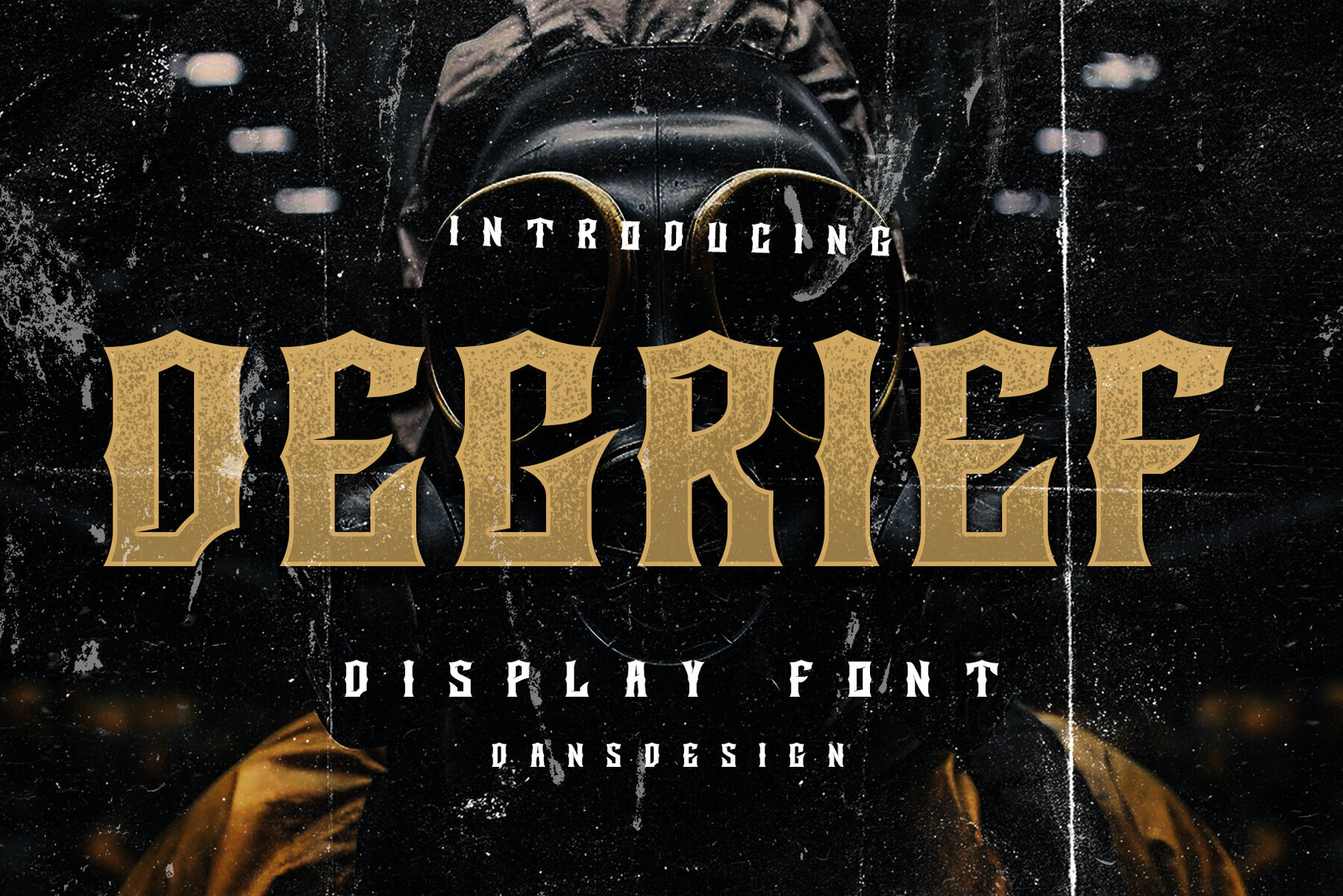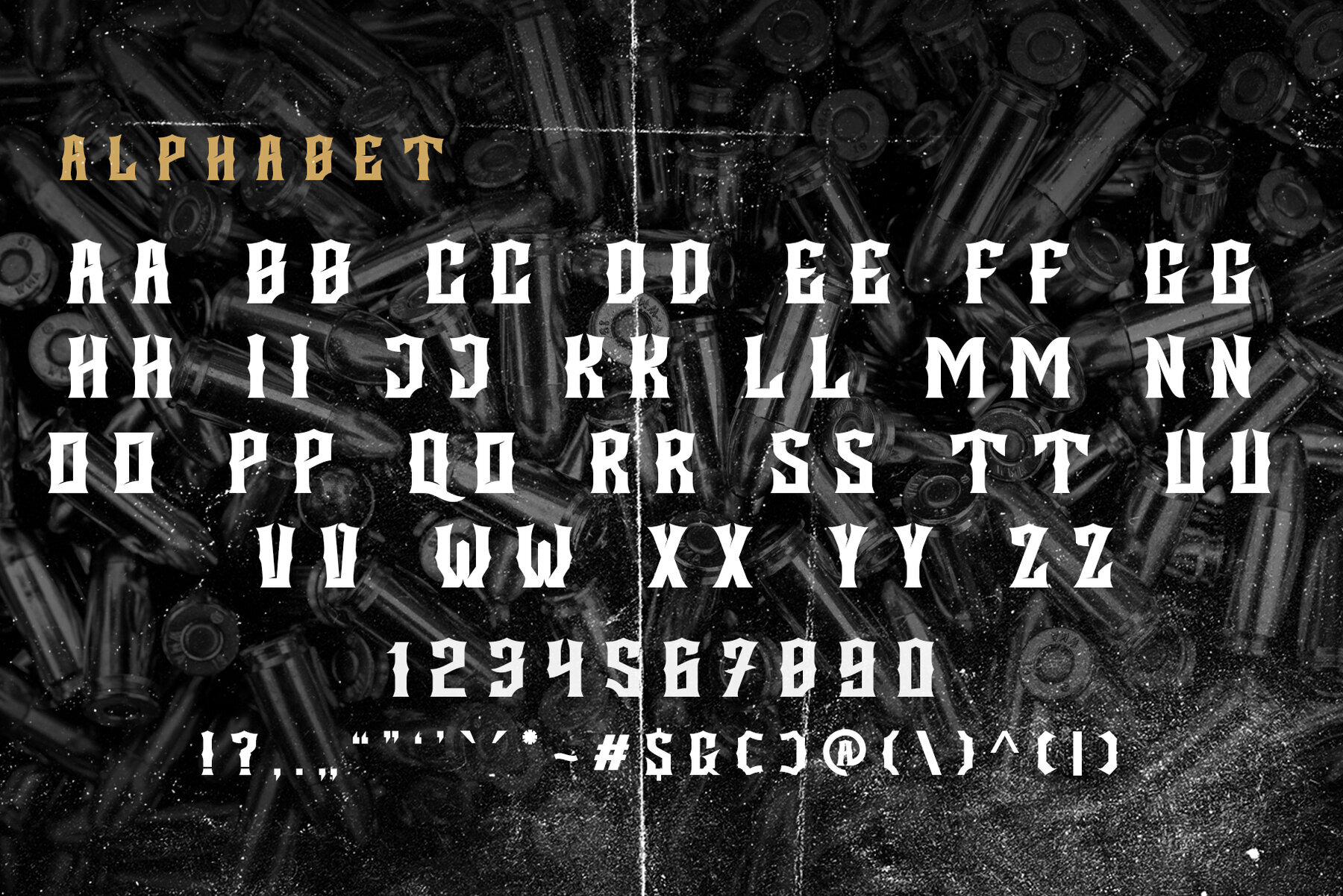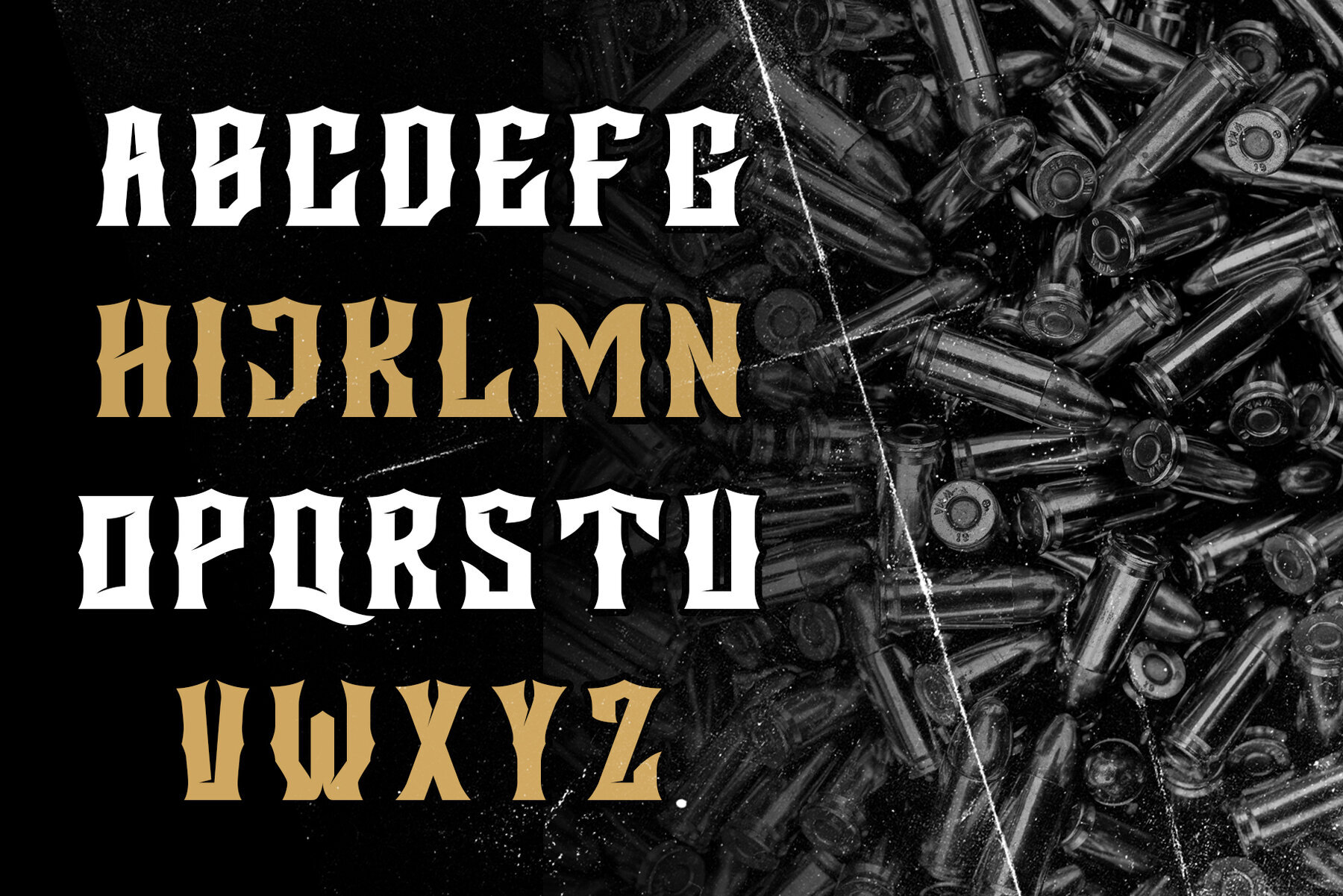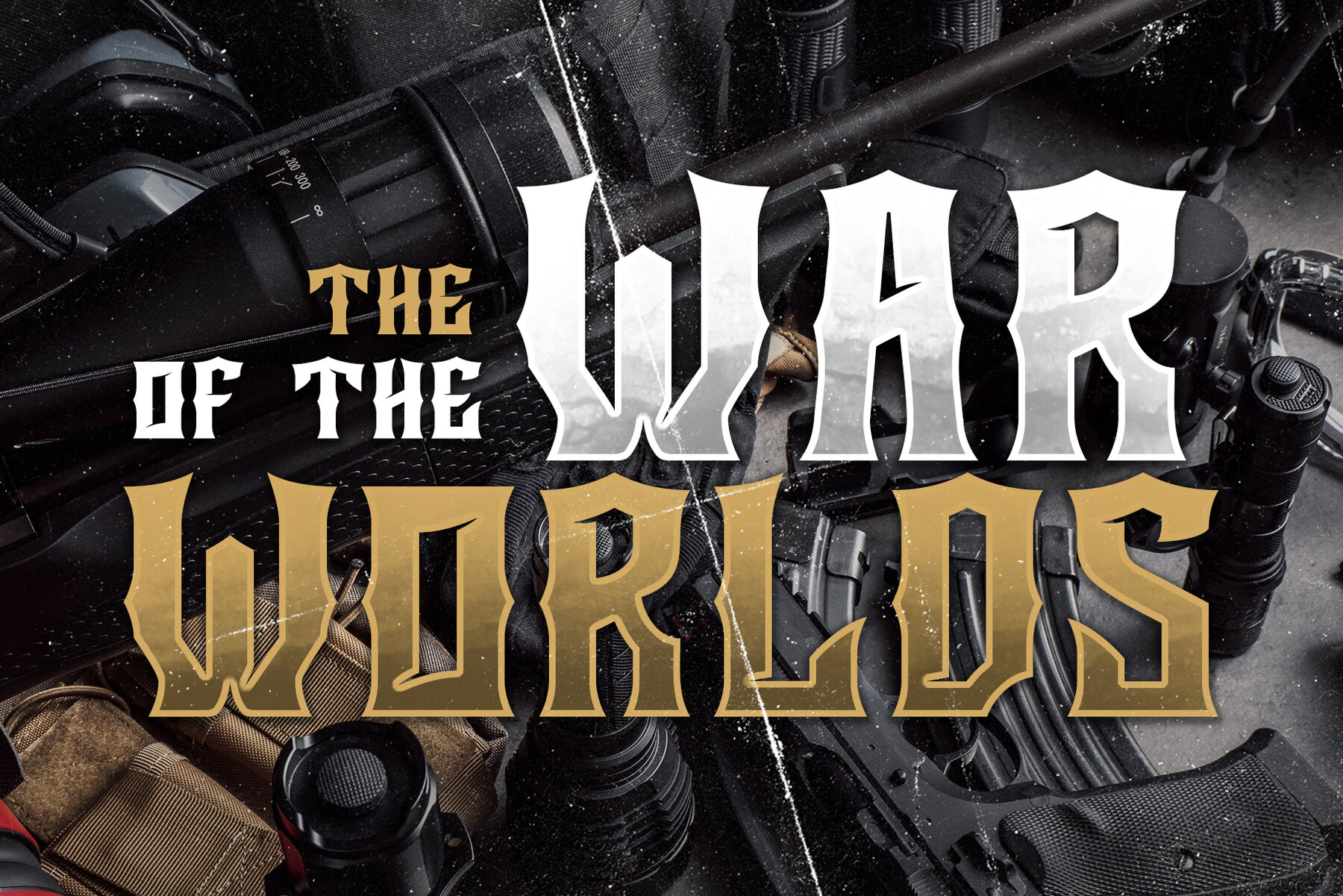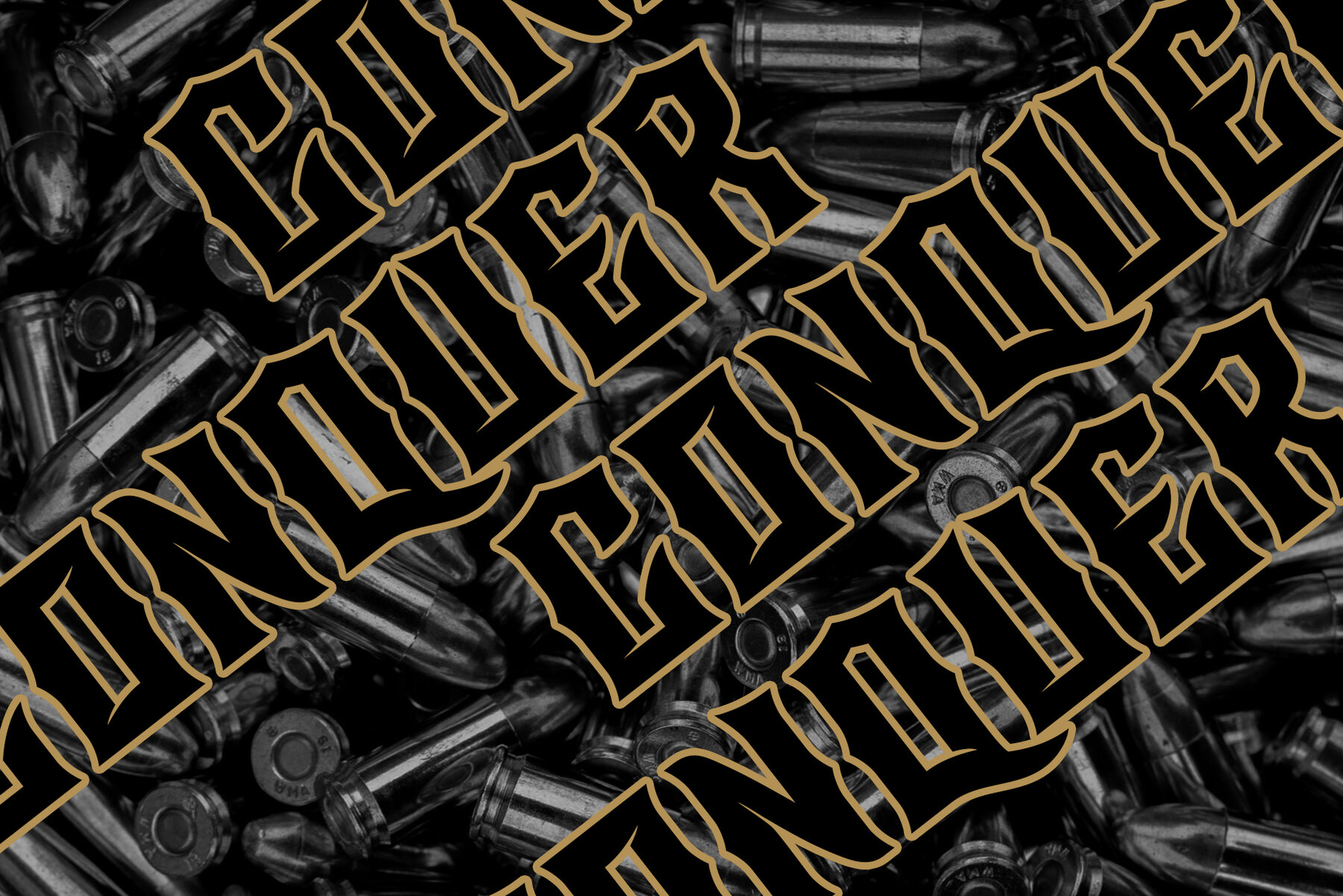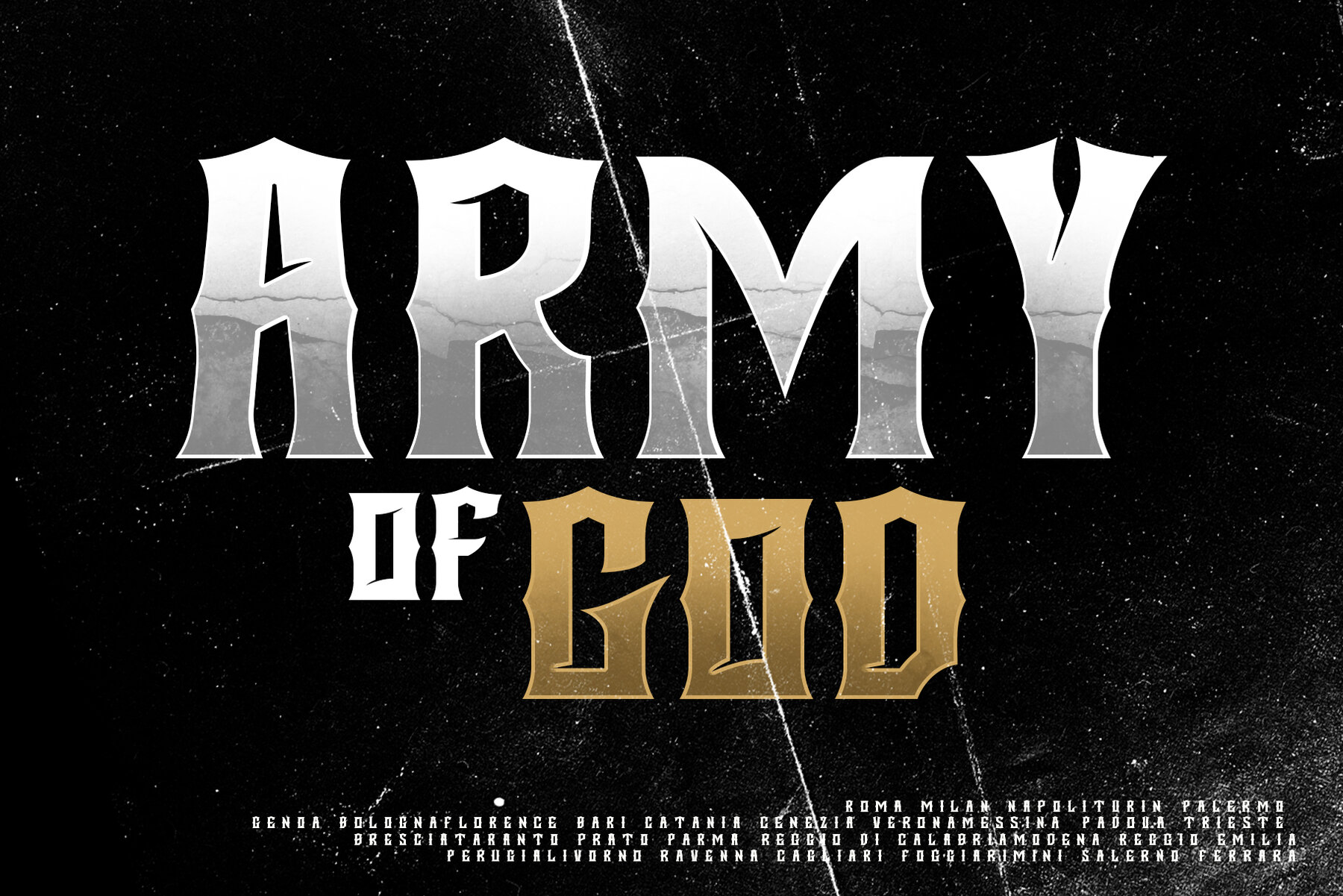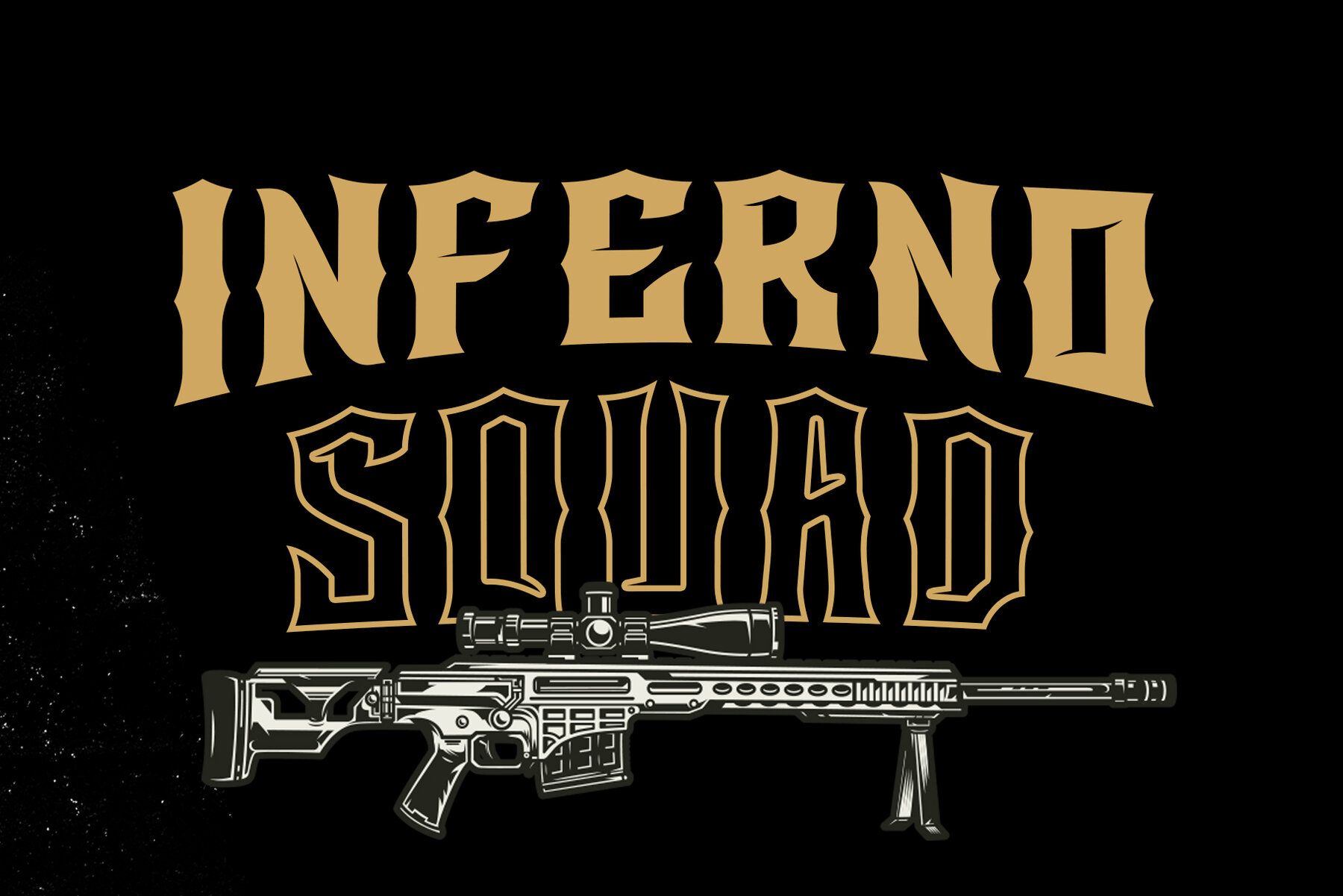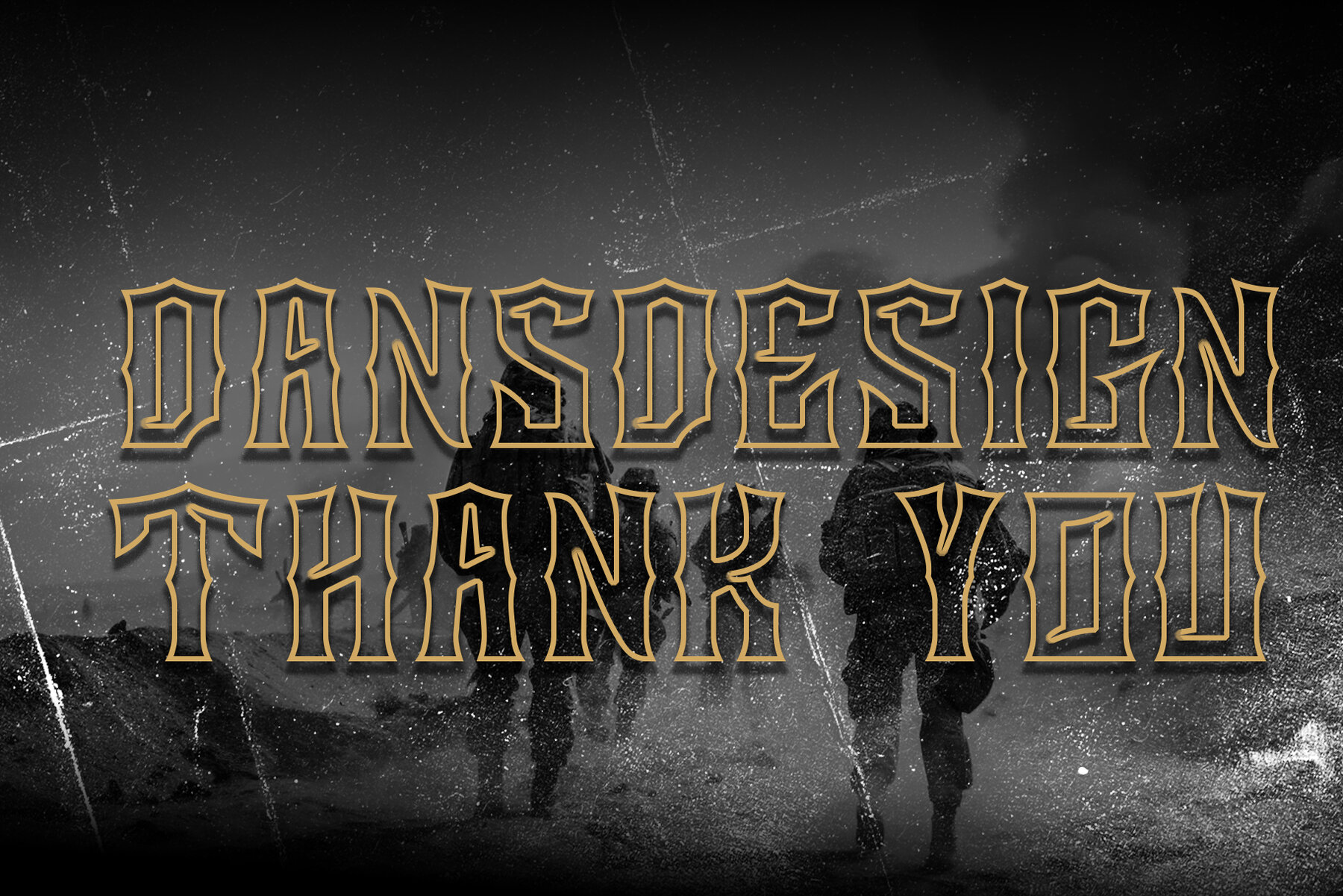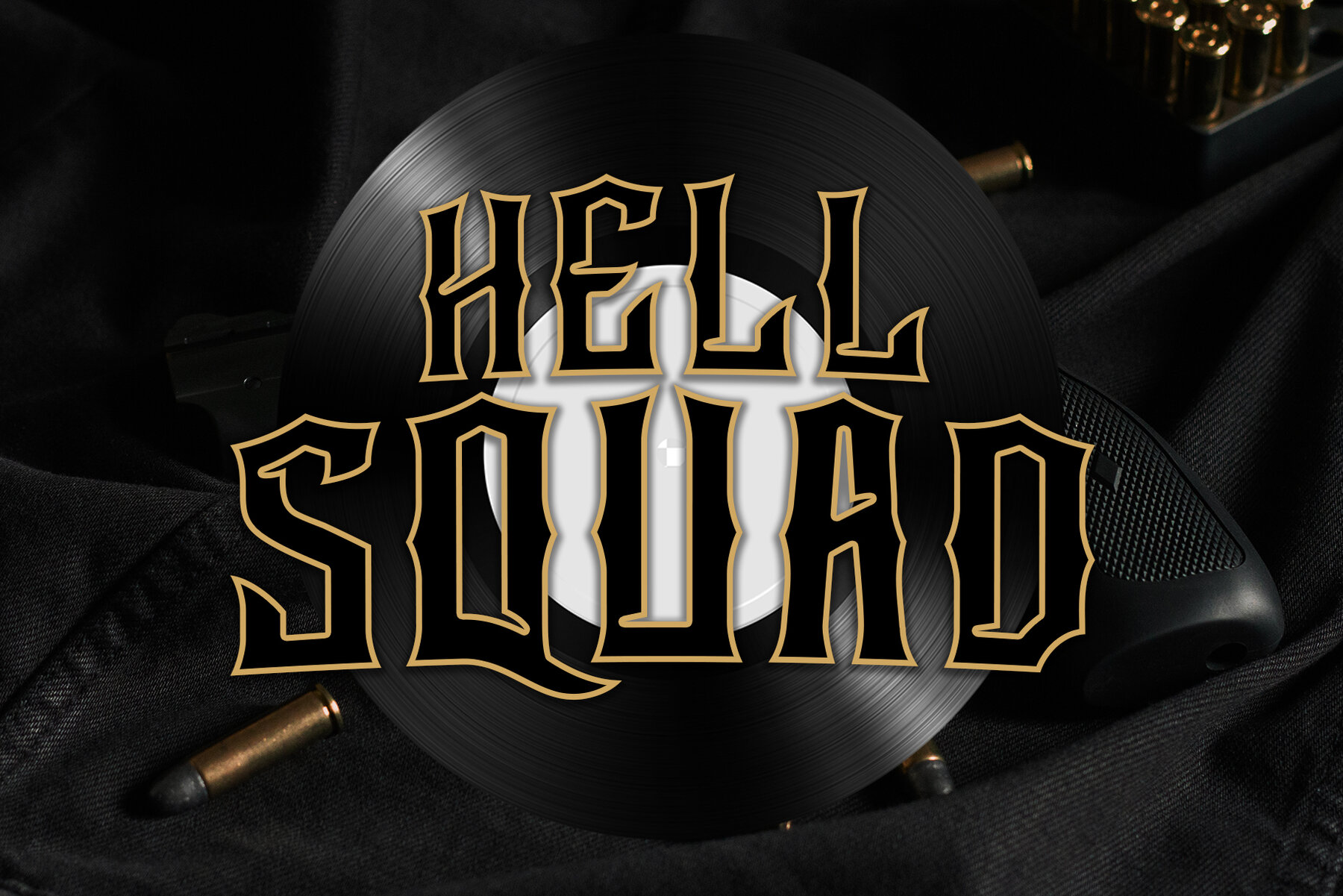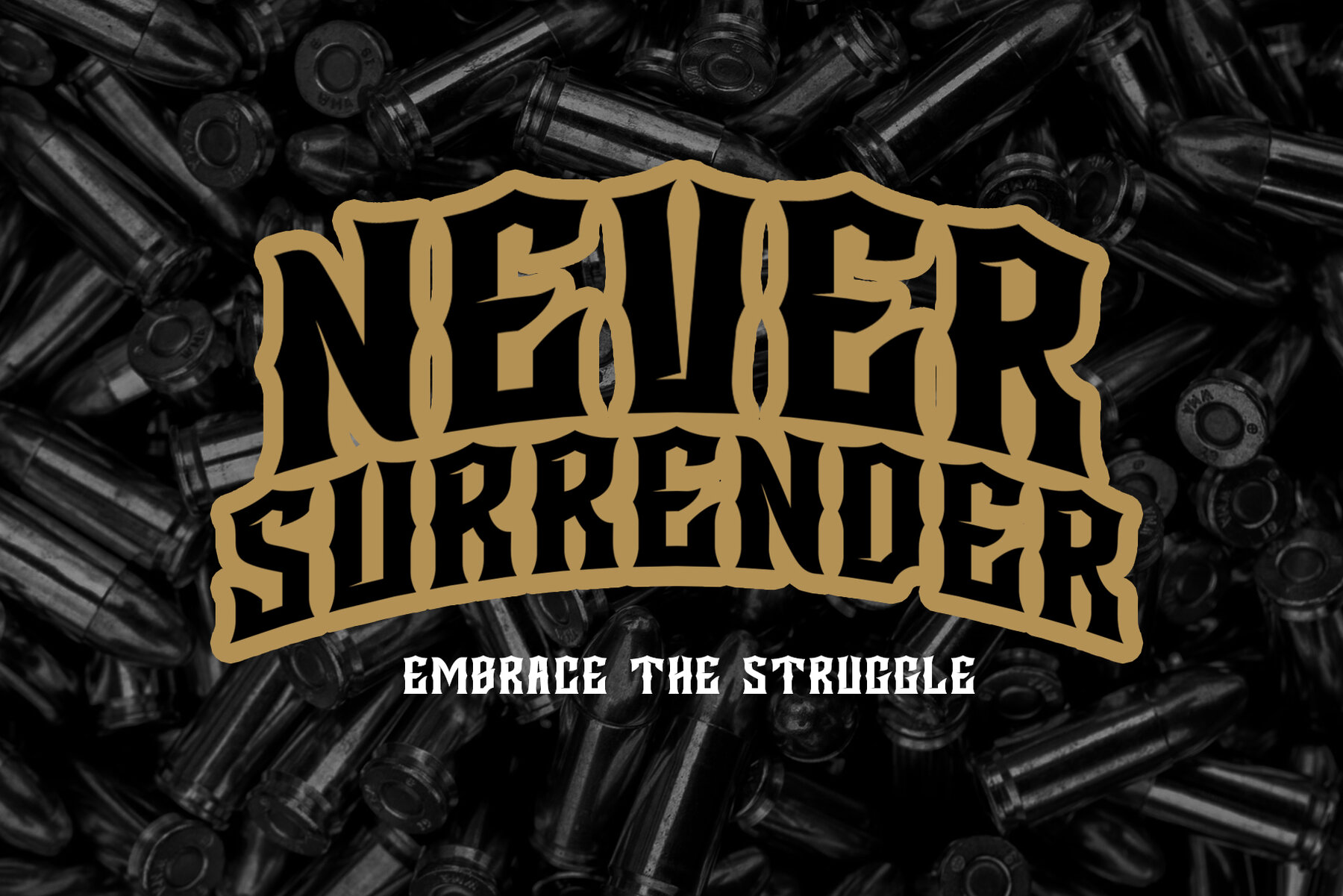
DEGRIEF Font
DEGRIEF
DEGRIEF is a striking Blackletter Display Font designed by Dandesign Studio, merging gothic, retro, and vintage aesthetics into one bold typeface. Characterized by sharp details and a strong presence, it is ideal for metal band logos, music posters, and tattoo brandings. With its distinctive horror-inspired blackletter appearance, DEGRIEF injects a powerful and edgy flair into any creative project. This versatile font is perfect for headlines, album covers, and merchandise that stand out. It's also well-suited to urban retro designs that demand attention. DEGRIEF provides accents, ensuring multilingual support, and is PUA encoded, making it fully accessible without additional software. OpenType standard numerals and punctuation further enhance its usability. Elevate your projects with the unique blend of vintage, gothic, and metal vibes that DEGRIEF offers, making your designs both memorable and impactful.DEGRIEF – Vintage Blackletter Display Font